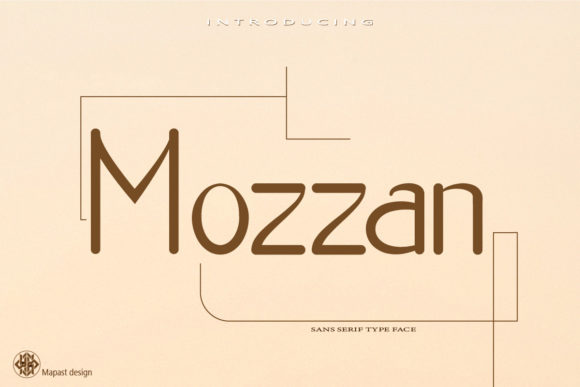
Behold the allure of Mozzan, a sans serif font family crafted with meticulous care by Mapast Design. As a font designed with the discerning eye of an interior designer, Mozzan exudes an air of sophistication and grace, promising to elevate your creative projects to new heights of visual appeal.
Immerse yourself in the world of Mozzan, where every stroke and curve is imbued with a sense of elegance and poise. Designed to be paired effortlessly with an array of design concepts, Mozzan possesses an uncanny ability to adapt seamlessly to your creative vision, adding a touch of timeless beauty to every project it graces.
Unleash your imagination and let Mozzan guide you on a journey of visual exploration. From sleek logos that command attention to elegant brochures that exude professionalism, Mozzan lends its versatile charm to a myriad of creative endeavors. Its thin strokes and delicate curves bring a touch of finesse to any design, captivating your audience with their understated charm.
With Mozzan, precision meets creativity. Experience the joy of crafting designs that exude an aura of sophistication and refinement. Its crisp lines and balanced proportions ensure that your message is conveyed with clarity and impact, leaving an indelible mark on your audience.
Step into the realm of Mozzan and discover a font that goes beyond mere aesthetics. With its ability to evoke emotions and convey messages with unparalleled eloquence, Mozzan becomes an extension of your creative expression. Let your designs speak volumes, captivating your audience with a visual narrative that resonates with them on a deeper level.